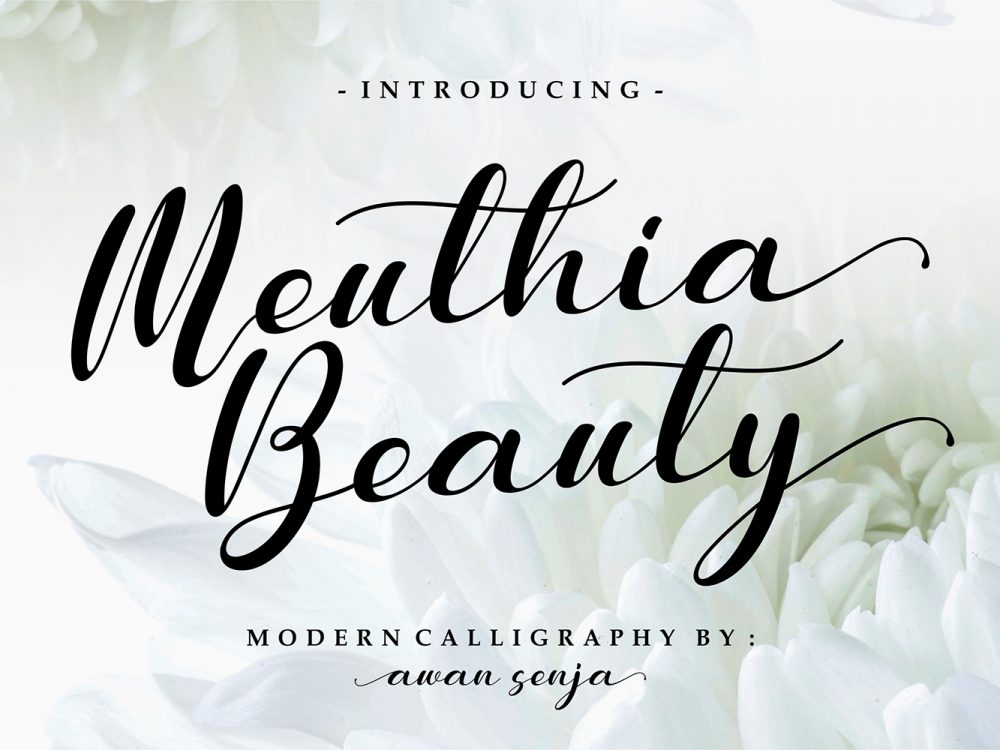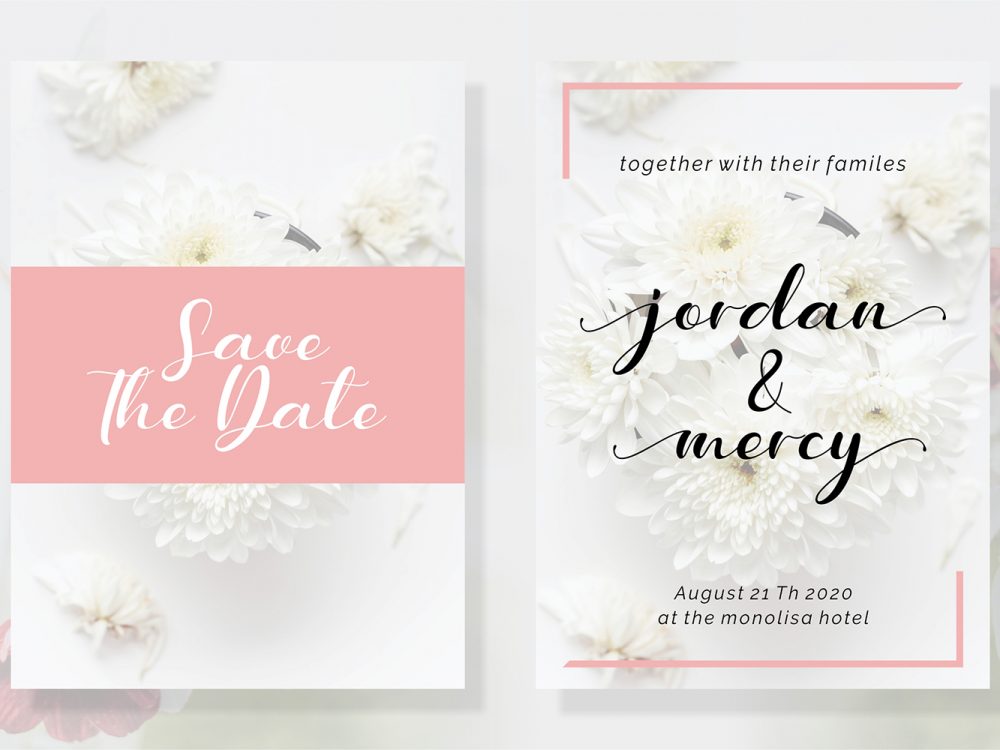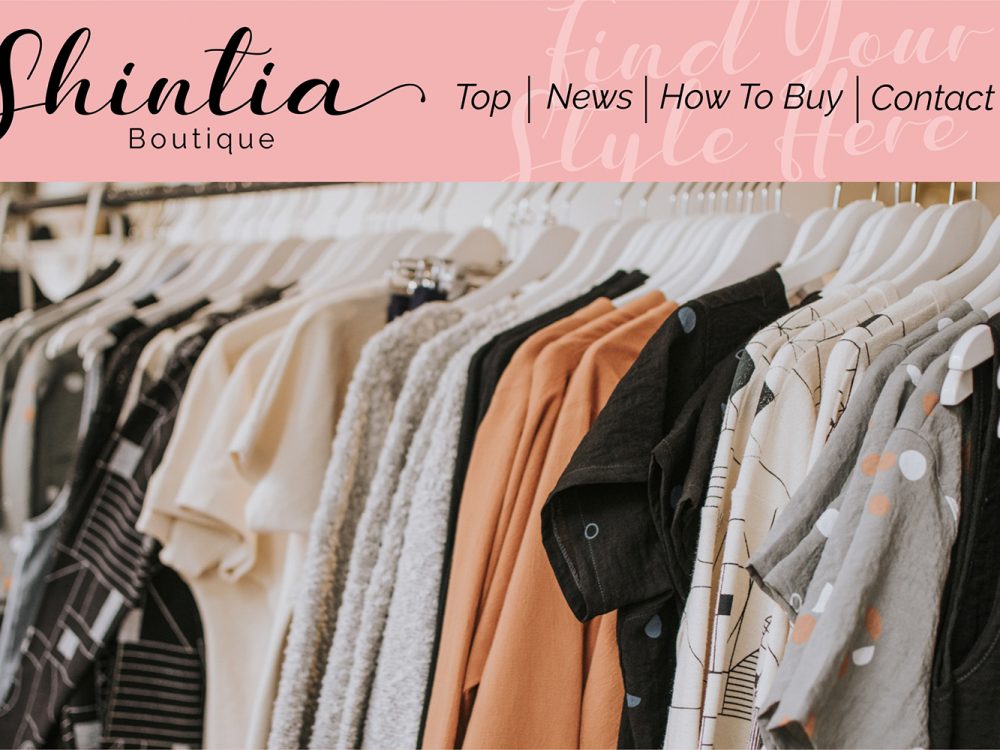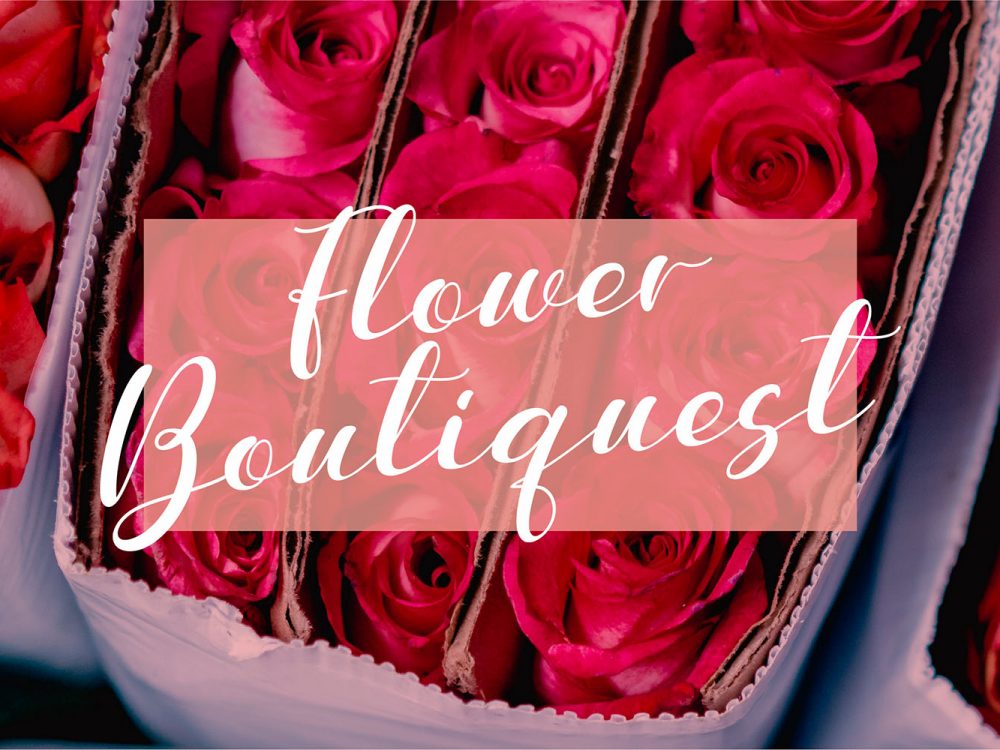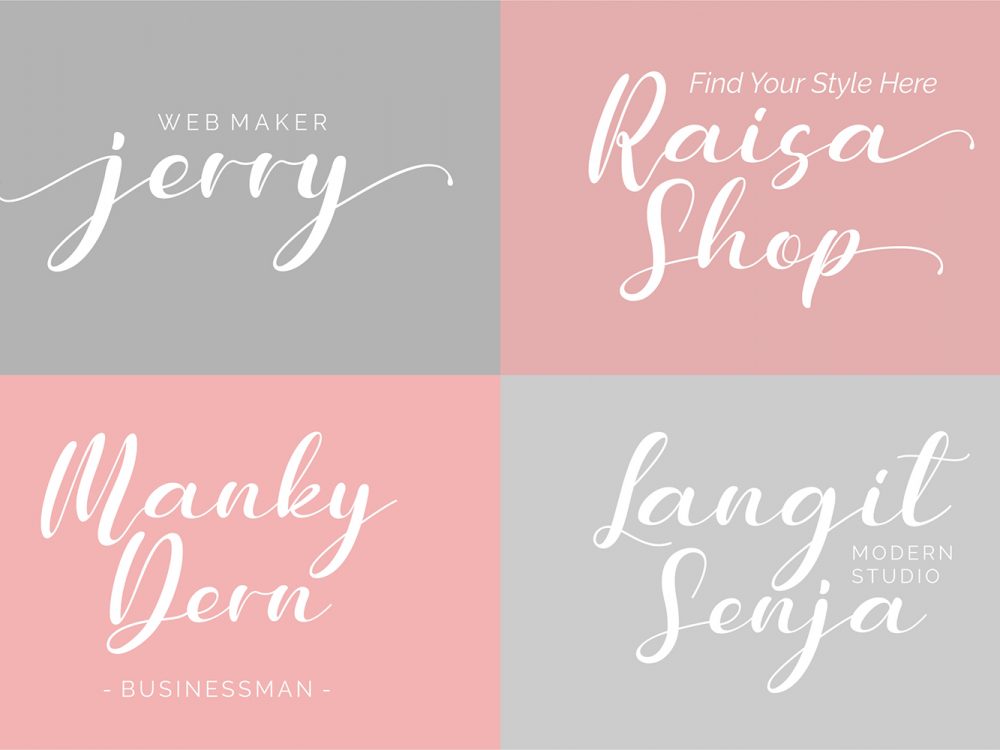
Meuthia Beauty Free Font
Meuthia Beauty Free Font is a stylish handwritten typeface that stands out for its elegant calligraphic style. This font will help you create unique design projects and enhance your professional level. Use this font to create memorable posters, wedding invitations, cards, branding, flyers, and more.